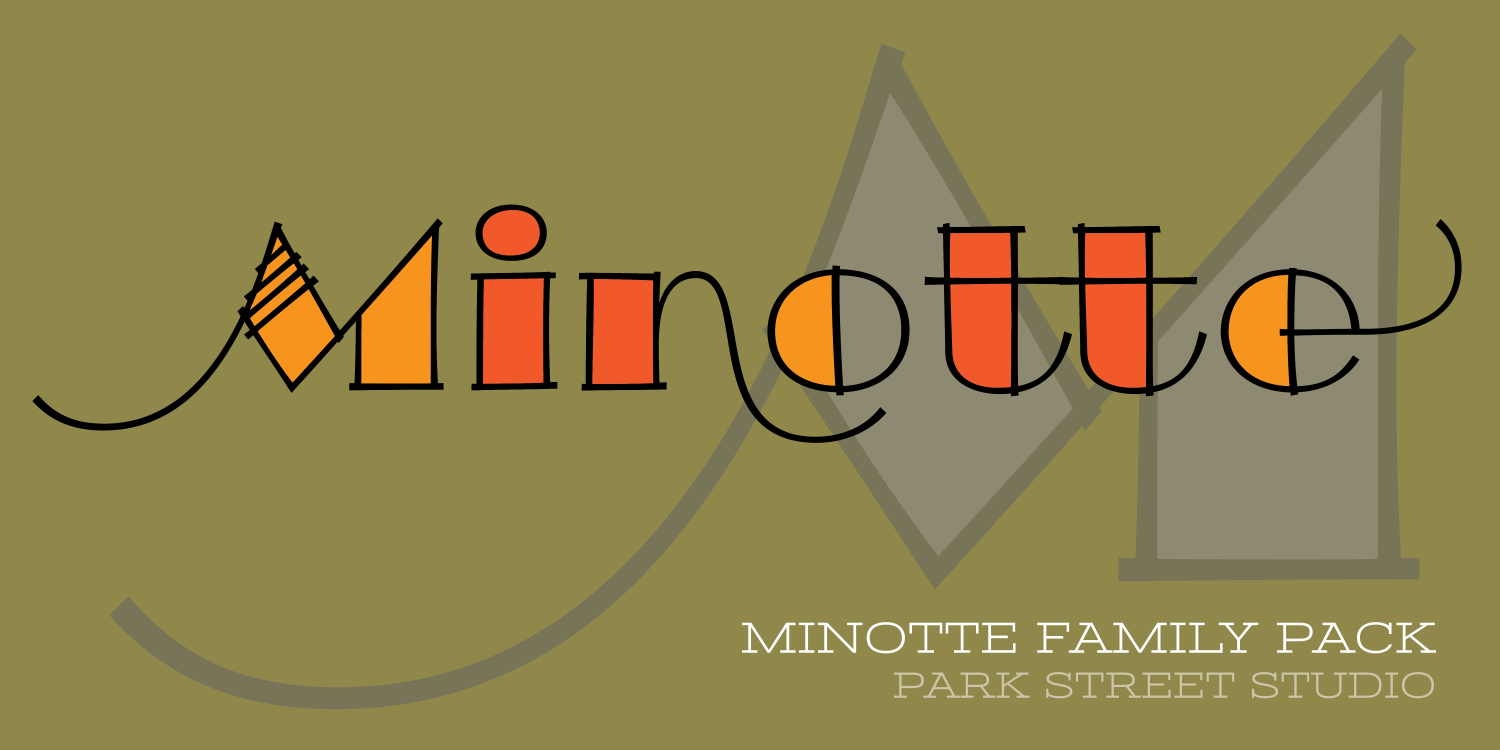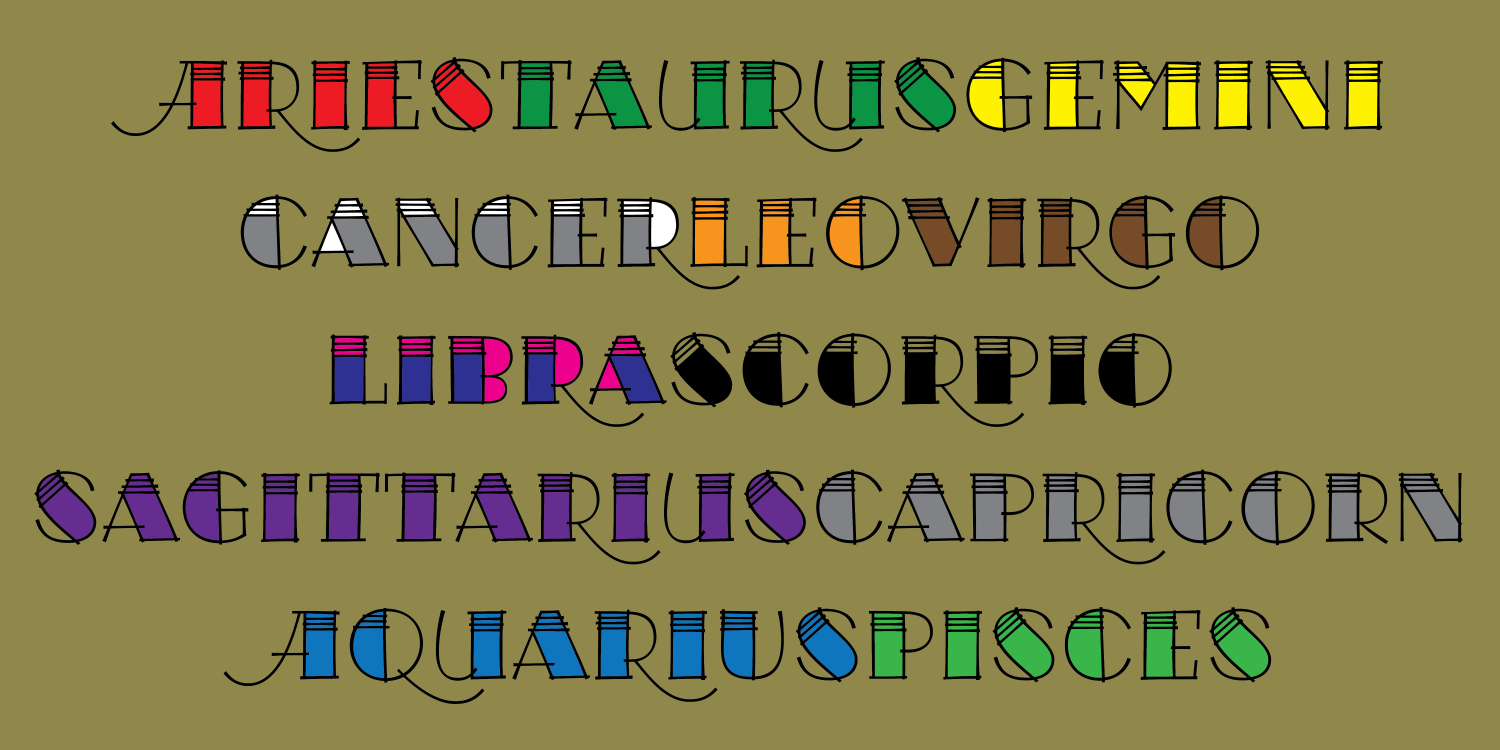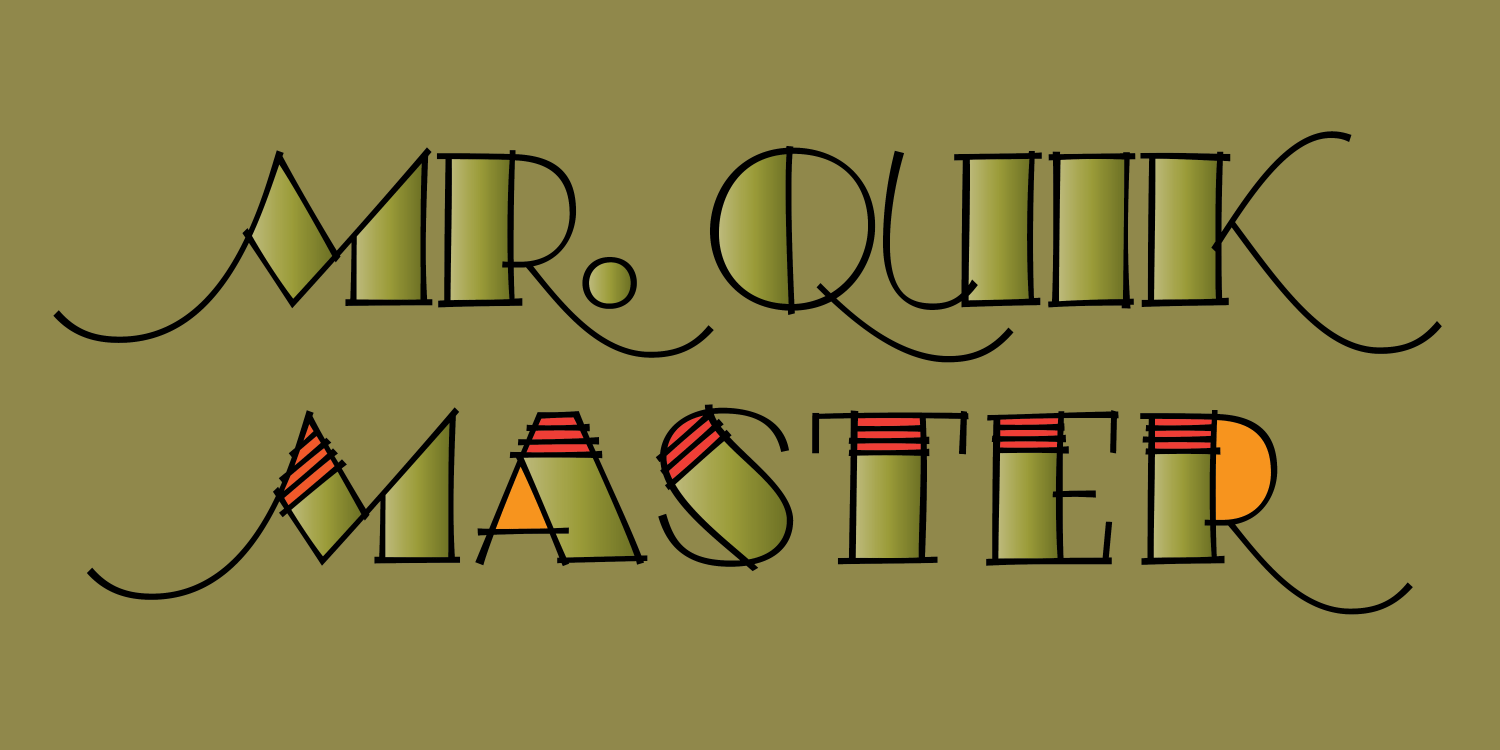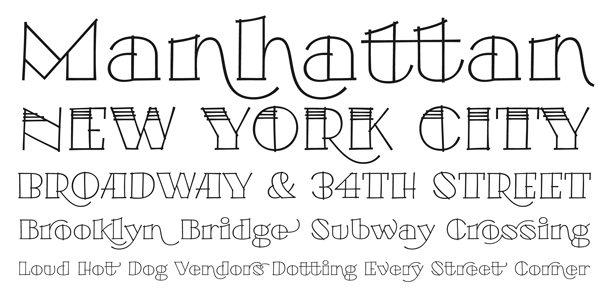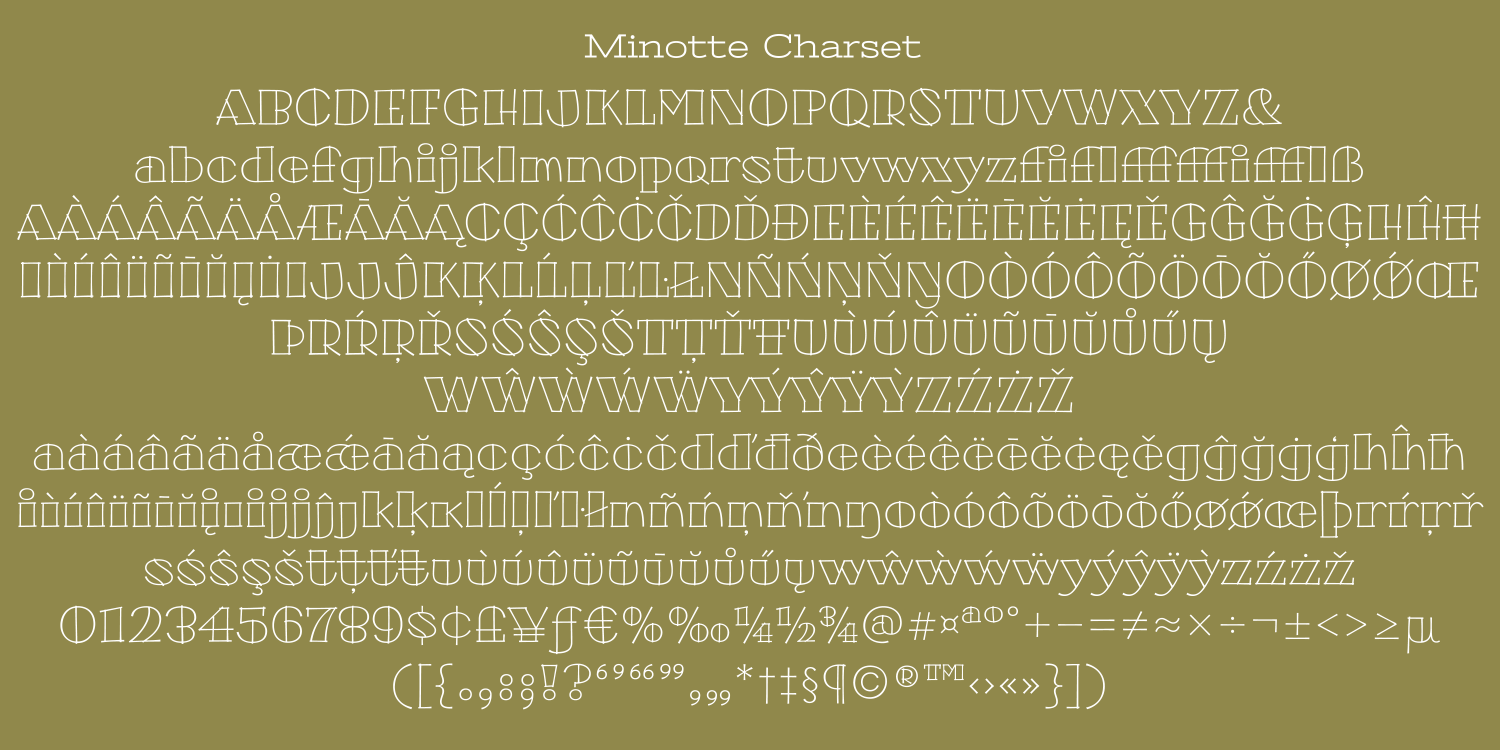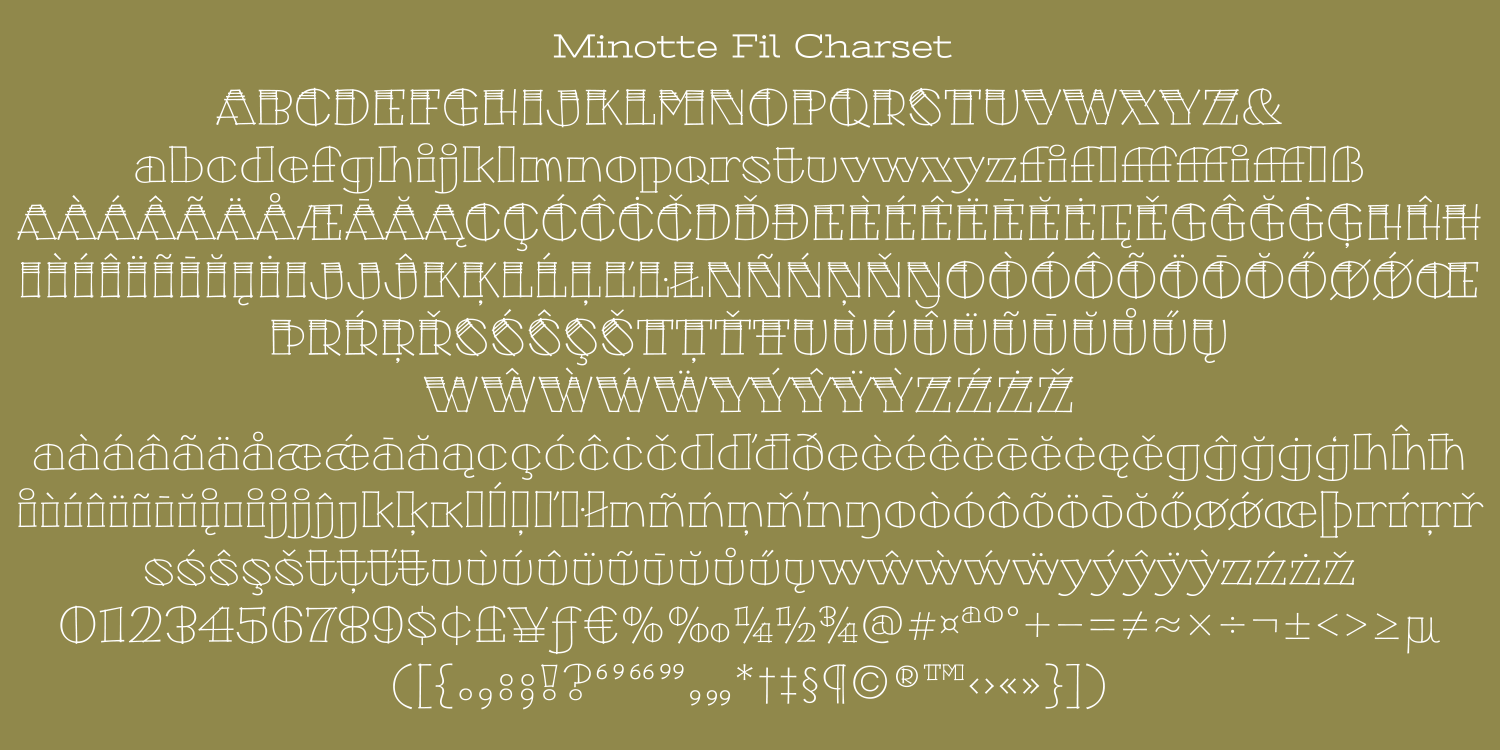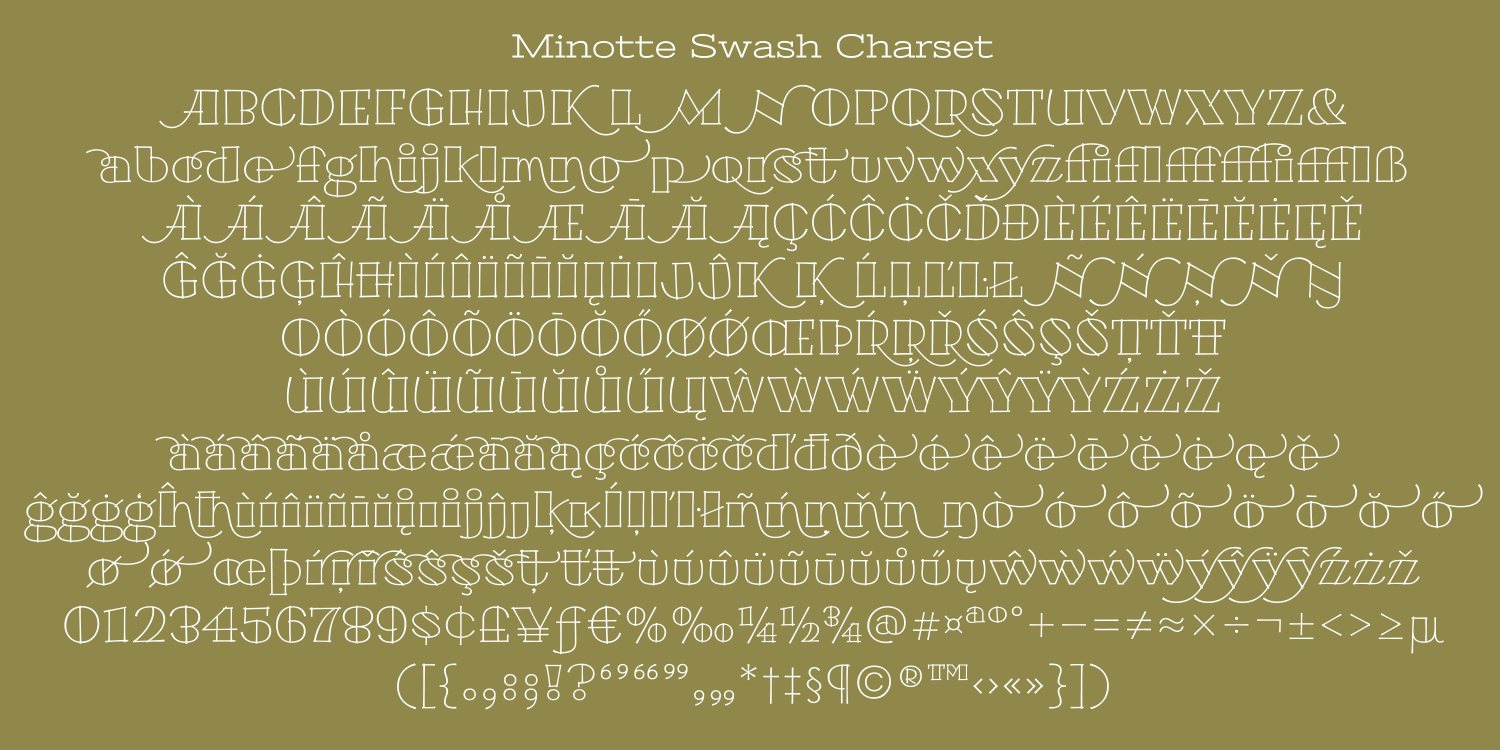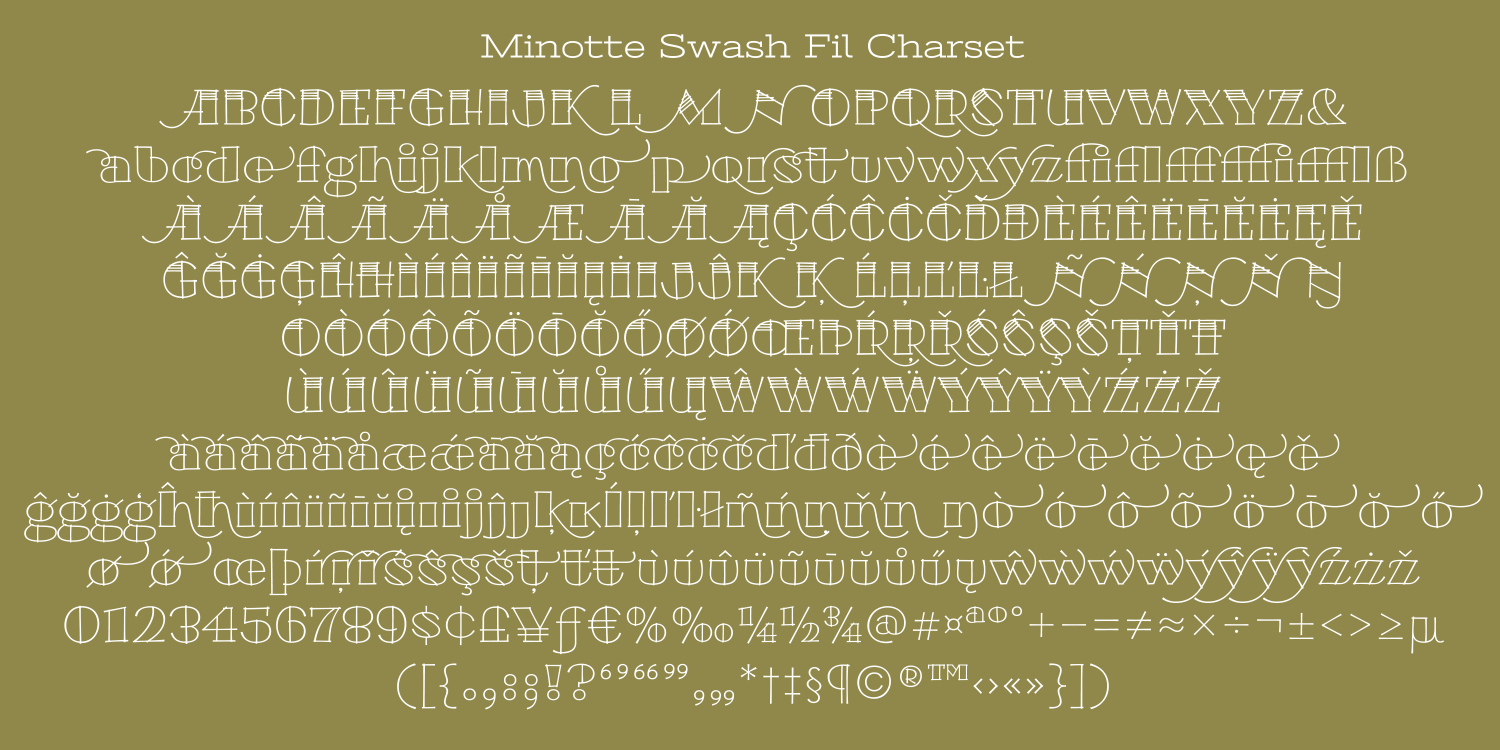
Minotte Family Pack
Font Family by Park Street Studio
The Minotte Family Pack includes the non-OpenType split out versions, Minotte, Minotte Swash, Minotte Fil and Minotte Swash Fil.
Intended for users that do not own or use OpenType savvy apps, the four alternative fonts capture the best of the Pro version and will provide you with the glyphs needed to duplicate some of Minotte Pro's typographic richness. Minotte and Minotte Fil are fully usable, whereas the Minotte Swash and Minotte Swash Fil are intended to work in tandem with the basic Minotte fonts. Set your headlines and text in Minotte, then switch to Minotte Swash and manually select the appropriate swash glyphs. Switch to either of the Fil fonts for Cap alternates sporting a partial fill.
Minotte, Minotte Fil, Minotte Swash and Minotte Swash Fil support an extended European character set.